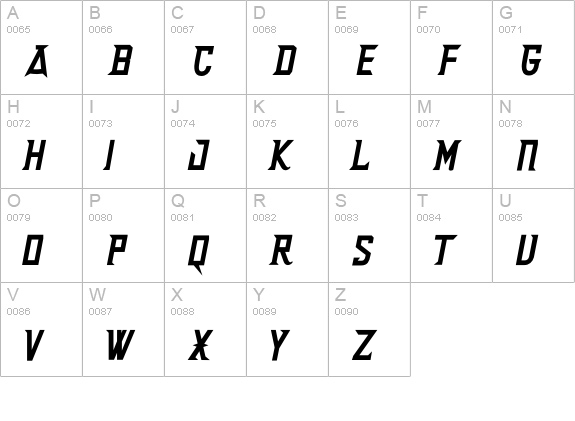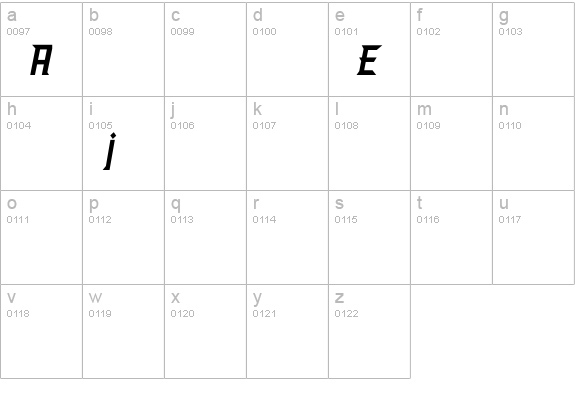
Delux-UltraBold is an extra-heavy, attention-grabbing variant in the Delux typeface family \xE2\x80\x94 well suited to high-impact headlines, posters, and bold branding.
Delux-UltraBold font is a striking and powerful typeface that commands attention with its bold and impactful design. This font exudes a sense of luxury and sophistication, making it perfect for headlines, logos, and branding projects that require a strong visual presence. With its thick, heavy strokes and sharp edges, Delux-UltraBold conveys a sense of modernity and confidence. The best part is that Delux-UltraBold font is available for free download at FontsMarket.com. This means that you can easily access this premium-quality font without breaking the bank, making it a valuable addition to your design toolkit. Whether you're working on a personal project or a professional assignment, Delux-UltraBold font will elevate your designs and help you make a bold statement. Download it today and unleash the power of this exceptional typeface in your creative endeavors.